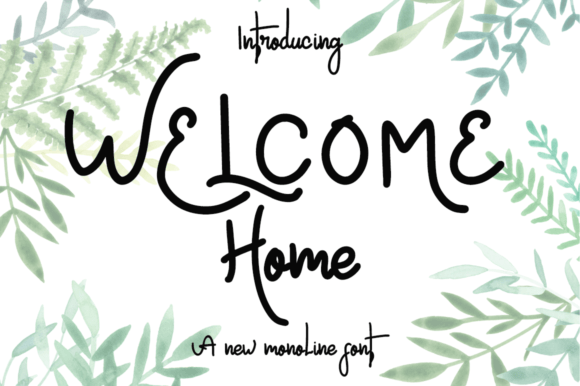
In a world of monotonous texts, where letters march in rigid rows, there exists a font that dances with grace and allure. Welcome Home Font, a script so enchanting, it will transform your designs into breathtaking landscapes of words. With its varied baselines, smooth lines, gorgeous glyphs, and stunning alternatives, Welcome Home Font is a visual masterpiece that will leave your audience spellbound.
Immerse yourself in the flowing strokes of Welcome Home Font, a testament to the artistry of handwriting. Its elegant curves and delicate swashes evoke a sense of timeless beauty, while its contemporary charm keeps it rooted in the present. Experience the joy of creating designs that resonate with warmth and sophistication.
Welcome Home Font is not just a collection of characters; it's an invitation to embark on a creative journey. Let your imagination roam free as you explore its endless possibilities. Craft logos that exude elegance, design social media posts that captivate, or create invitations that leave a lasting impression. The possibilities are bound only by your creativity.
With Welcome Home Font, you can effortlessly elevate your projects to new heights of visual appeal. Whether you're a seasoned designer or just starting, this font will become your trusted companion, transforming your ideas into works of art. Embrace the beauty of Welcome Home Font and unlock the door to a world of design possibilities.